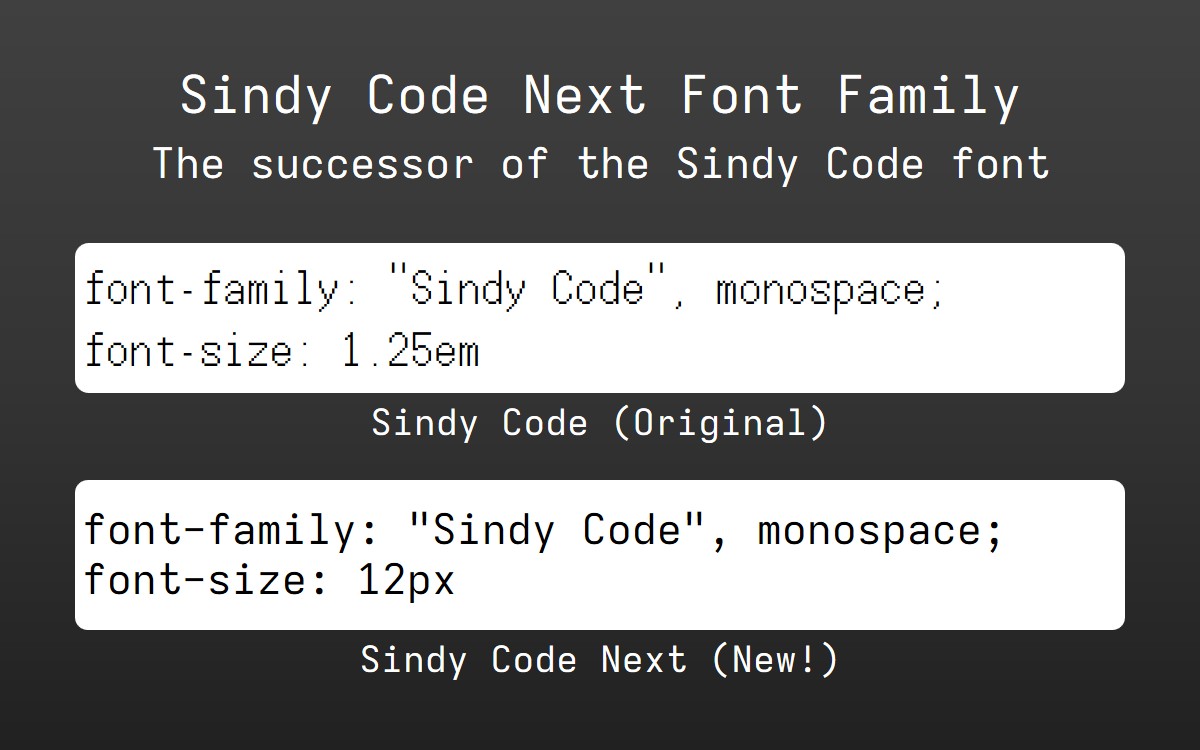
(Formerly known as “Indomalay Code” before 01/05/2026)
Sindy Code is a monospaced pixel font with business feeling in blocky style winch it is inspired from “Inter” font. This monospaced font is designed to pair with Rasmus Andersson's "Inter", or Matthew Carter's "Tahoma" and "Verdana" font, or even Adrian Frutiger's "Frutiger" font.
09/08/2026 News:
Recently, I made a newer version of Sindy Code font based from Iosevka, and the font is called “Sindy Code Next”. This new version features slighty fewer serifs, making it more match with Inter font.
What happens next?
Since the Sindy Code Next font is now available, thie original of Sindy Code font will be considered as finished project. I may no longer updating the Sindy Code font, Instead, you can move on by using Sindy Code Next font.
Be careful! Sindy Code and Ghea Code fonst are the different fonts, Sindy Code font design is inspired from “Inter” font with a double-storey lowercase 'a' as the default form for Sindy Code font. Meanwhile the Ghea Code font is inspired from Lexend font, with single-storey ‘a’ instead.
(about the newer font)
the new font feels like a crossover of jetbrains mono and inter and i like it
also it has the potential of being variable